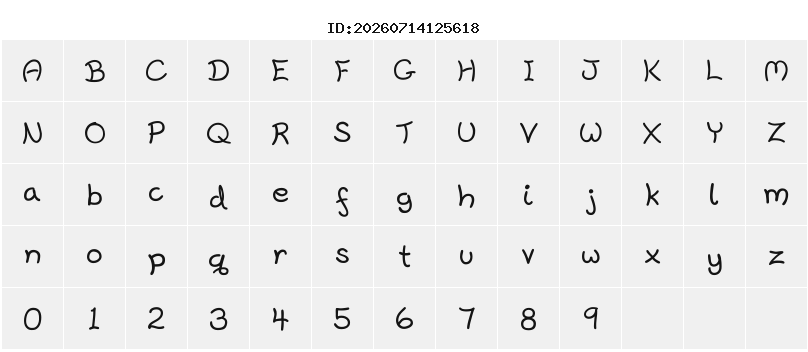
• Font Name: Harrowprint
• Font ID: FontForge 2.0 : Harrowprint : 19-1-2009
• Full Font Name: Harrowprint
• Version: 3.0, created using FontForge and Inkscape in Linux
• PostScript Name: Harrowprint
• Designer: Stephen Charles Doonan, stephen.doonan@gmail.com
About Harrowprint.ttf
Harrowprint.ttf is a modern, elegant sans-serif font designed for ultimate readability and visual harmony. Perfect for branding, headlines, web design, and print materials.